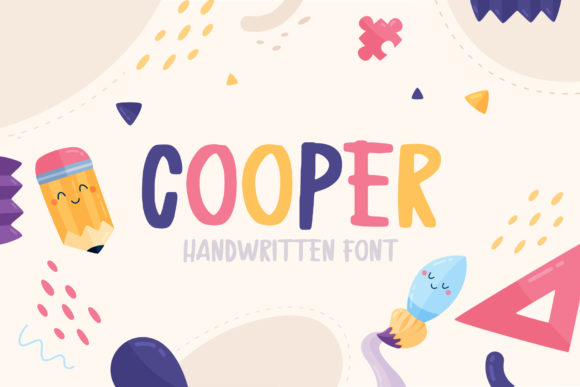
Journey into the world of enchantment, where imagination blooms and dreams take flight. Meet Cooper Font, the enchanting script typeface designed to capture the innocence and wonder of childhood. Inspired by the whimsical tales and playful scribbles of little dreamers, Cooper Font is crafted to bring life to your creative projects.
This charming font family exudes warmth and friendliness, its hand-drawn strokes evoking the magic of handwritten notes and the allure of storybooks. Whether you're crafting invitations to a magical birthday party, designing posters for an enchanting playroom, or creating captivating social media posts, Cooper Font is your perfect companion.
With its natural and unique style, Cooper Font effortlessly adds a touch of whimsy and delight to any design. Its versatility knows no bounds, flowing seamlessly into logos that radiate joy, greeting cards that spread warmth, and websites that burst with creativity. The only limit is your imagination!
Step into the realm of imagination with Cooper Font and let your creativity soar. Let its enchanting characters dance across your designs, captivating audiences of all ages. Your projects will radiate with a charm that will leave an everlasting impression.
Cooper Font is more than just a font; it's an invitation to embrace the magic of childhood, to see the world through the eyes of wonder and creativity. So, seize this opportunity to unleash your inner child and let Cooper Font guide you into a world of endless possibilities. Download Cooper Font today and embark on a creative journey that will ignite your imagination and capture hearts.